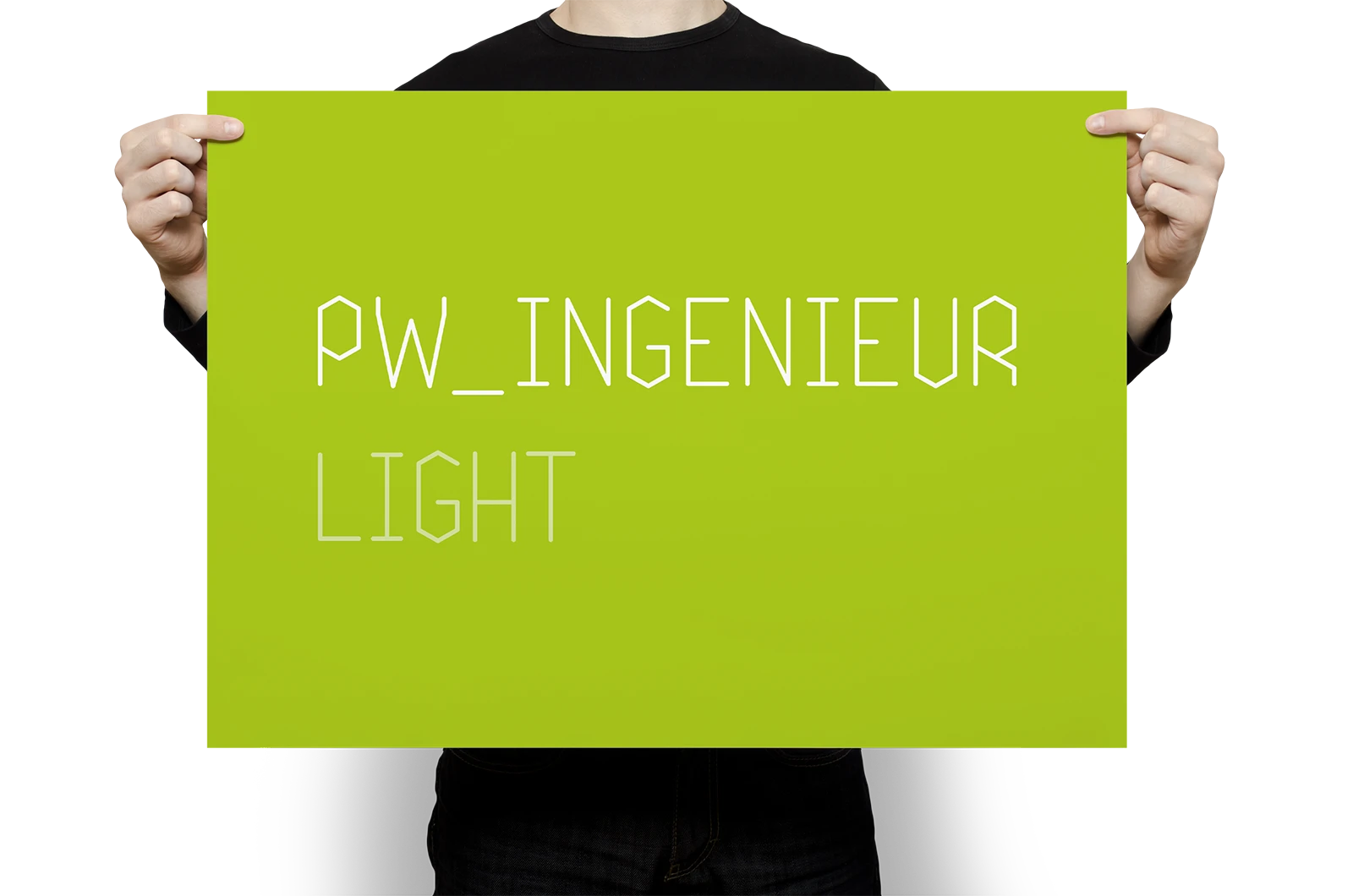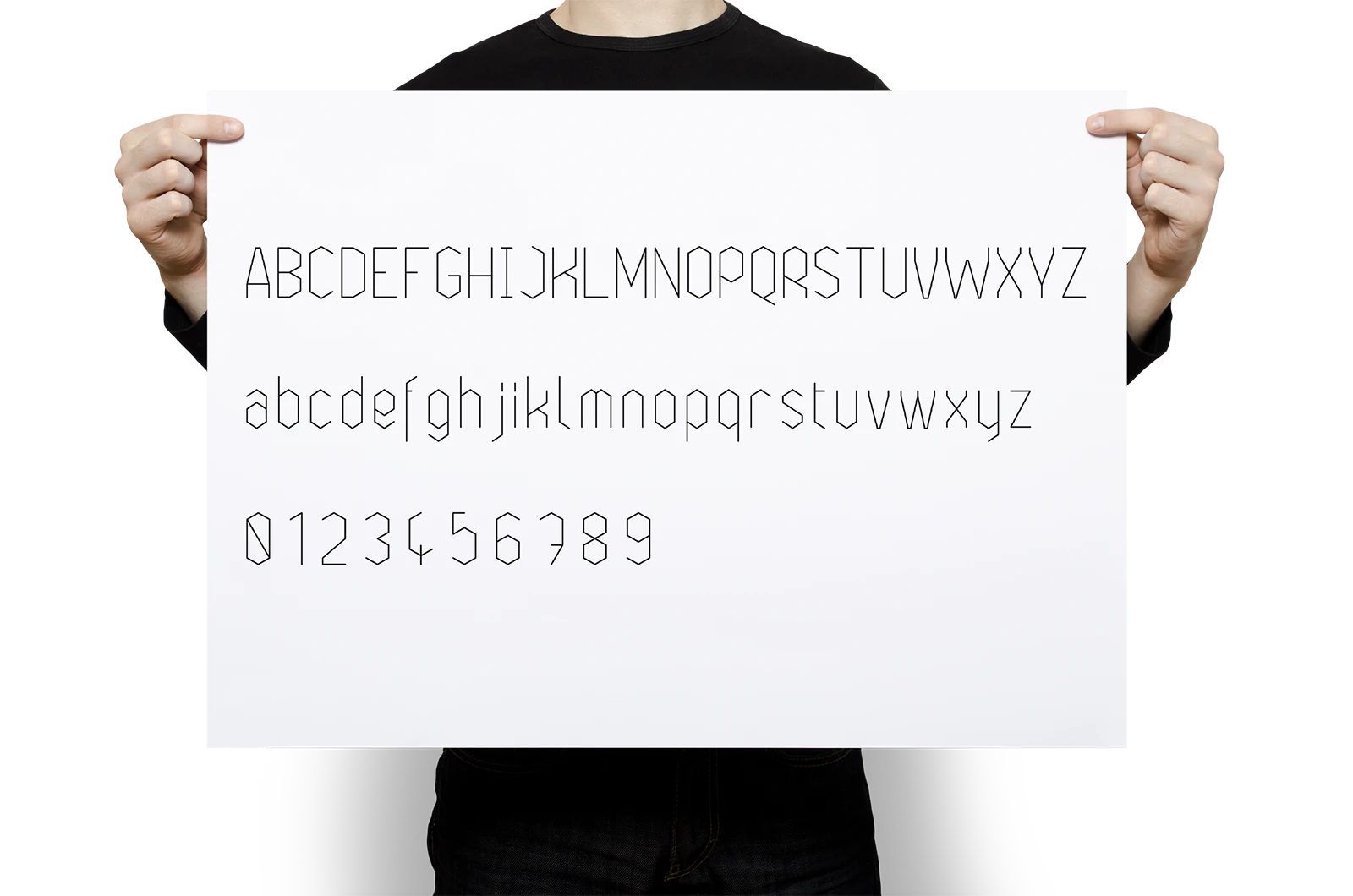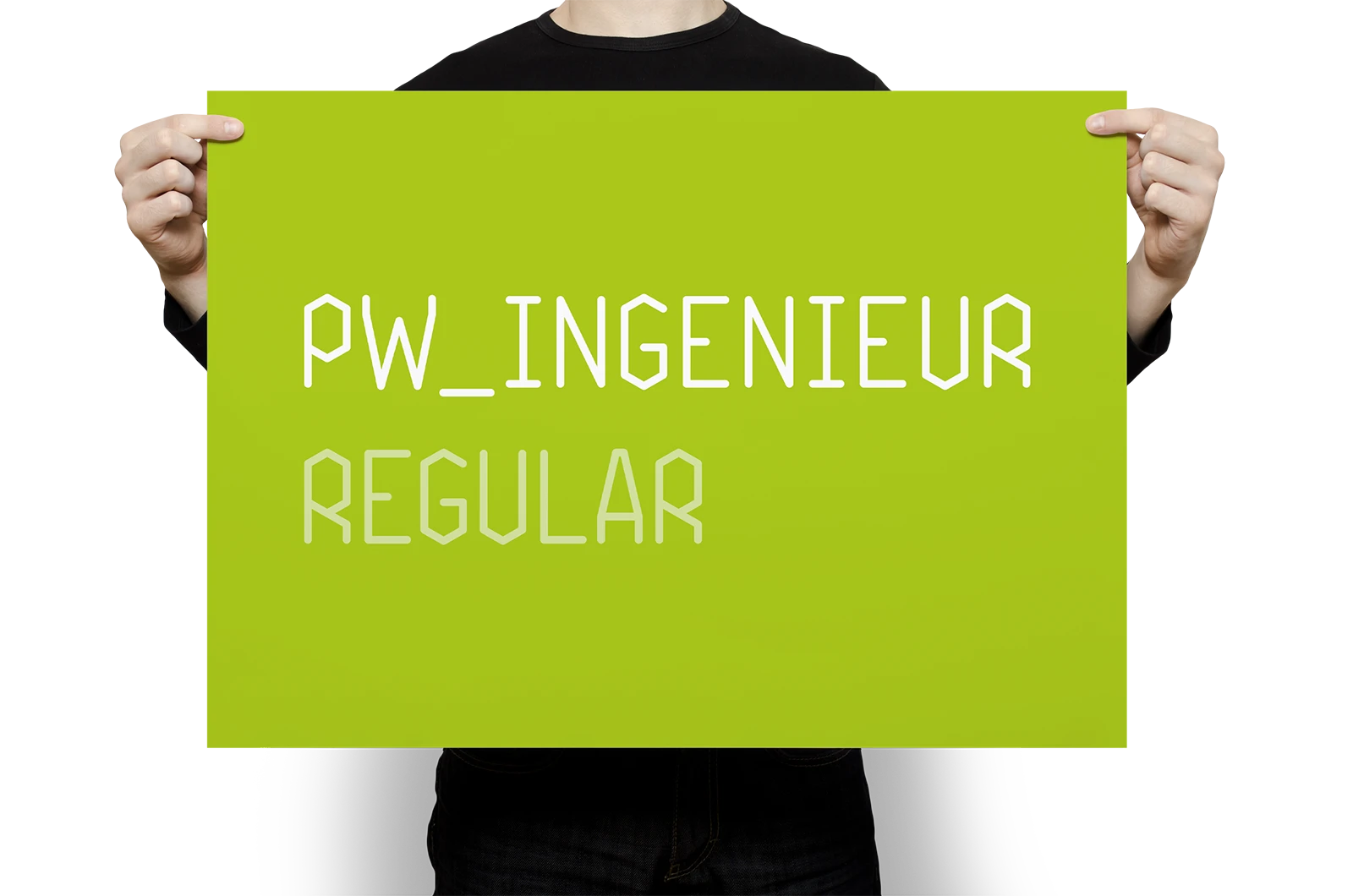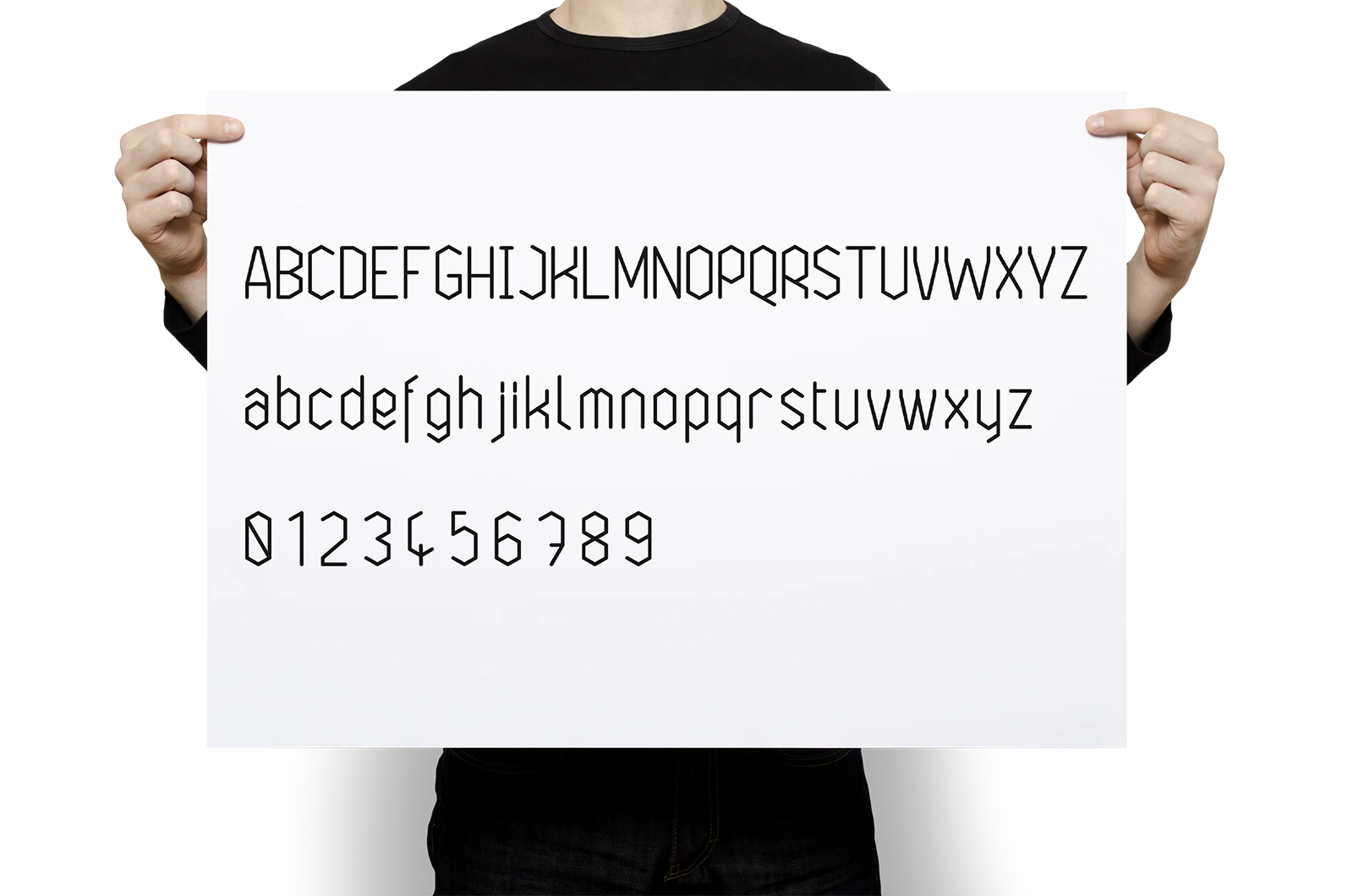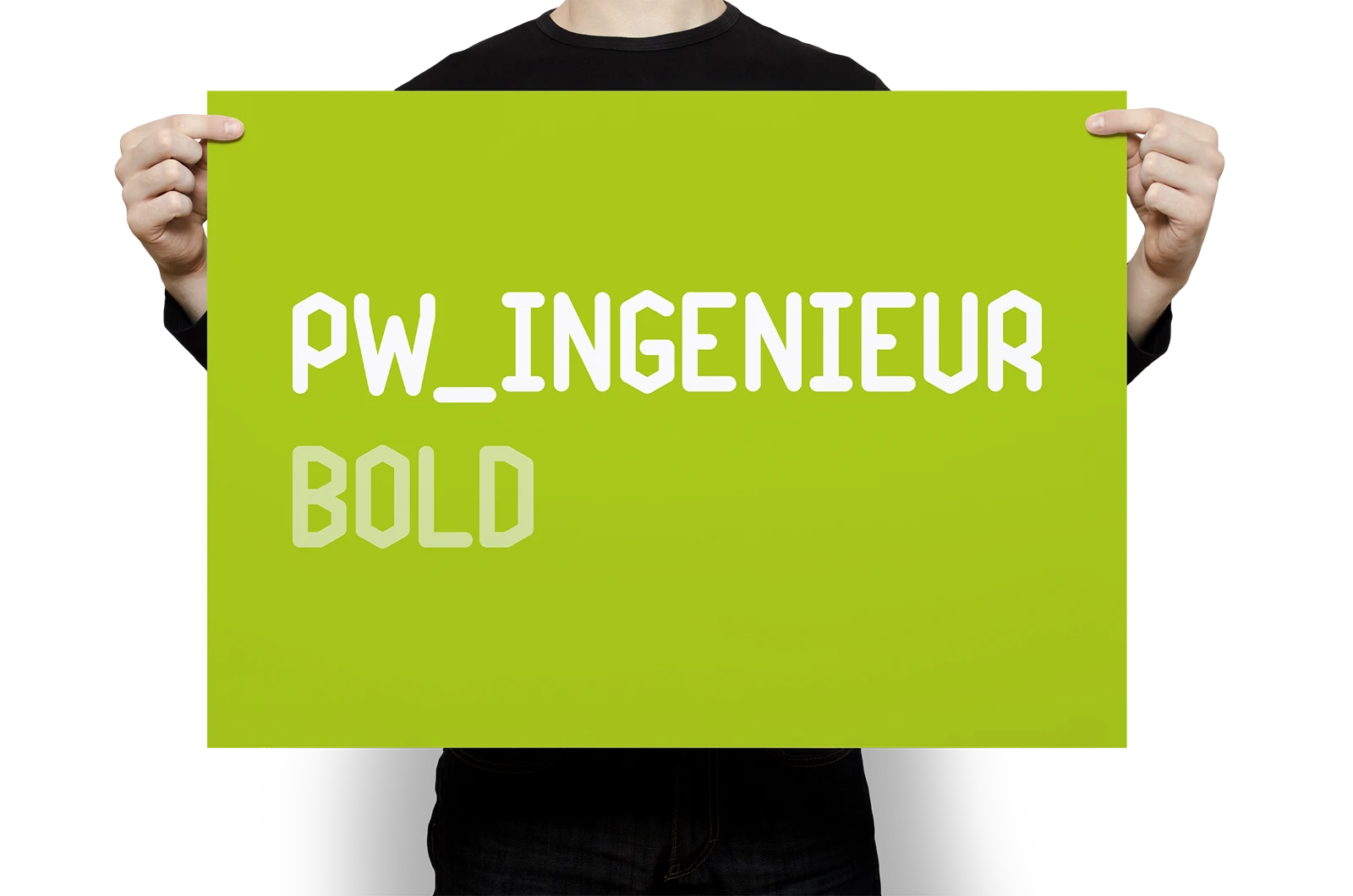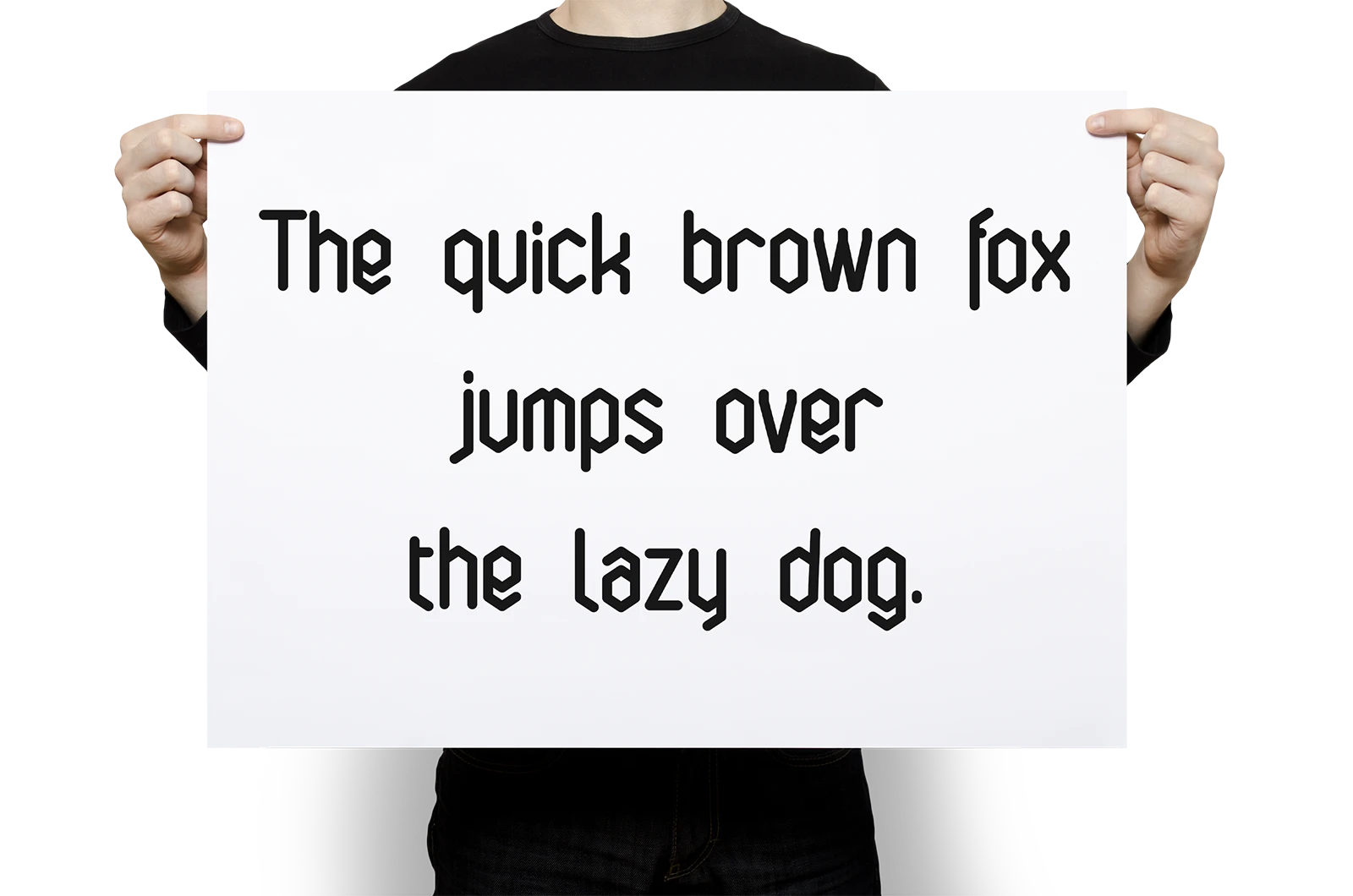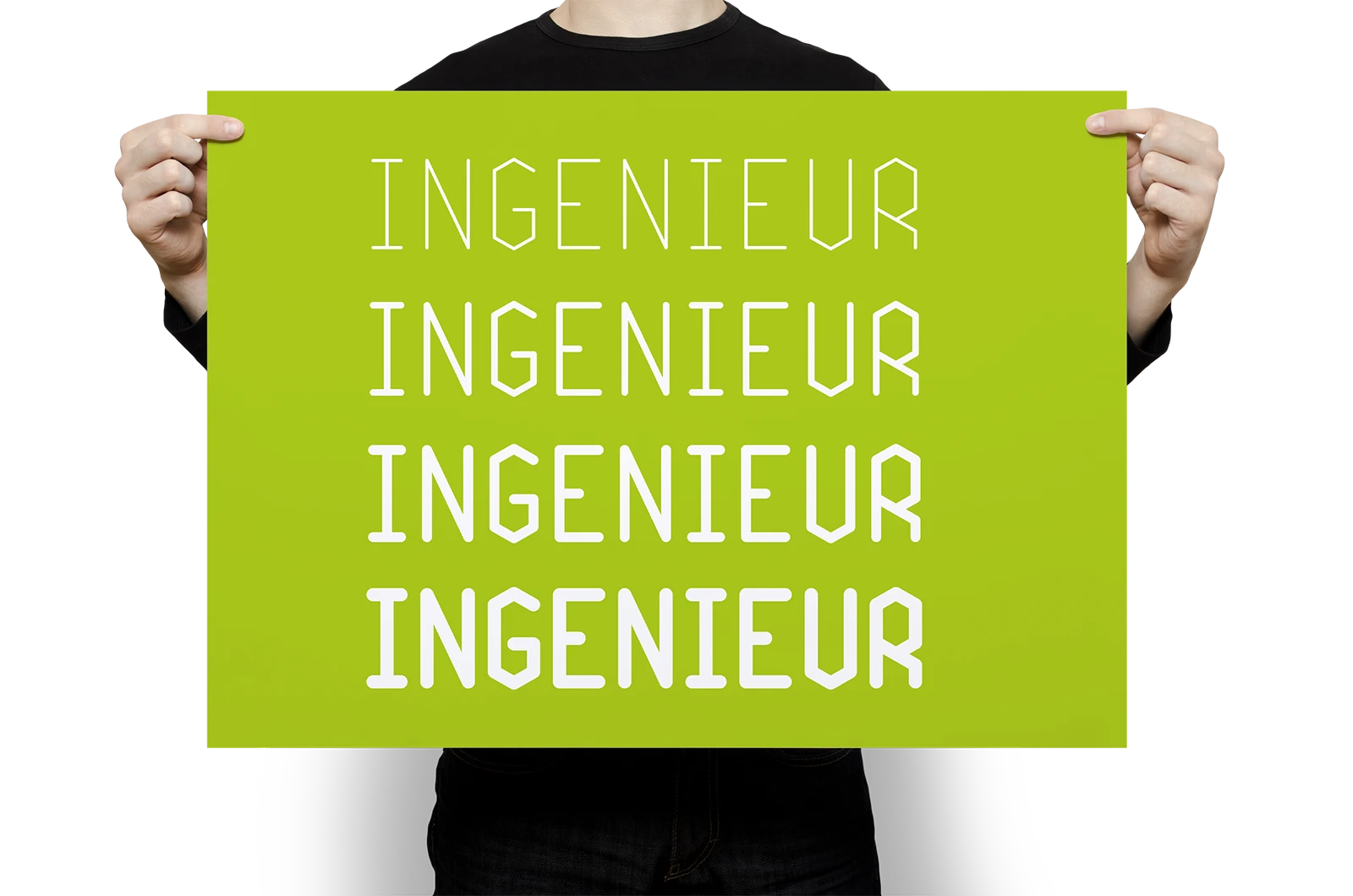
A project on the topic of typography design, in which a minimalist headline font was created in four styles. This font was developed as part of a freelance project.
Ein Projekt zum Thema Schriftgestaltung bei dem eine minimalistische Headline-Schrift in vier Schnitten gestaltet wurde. Diese Schrift entstand im Rahmen eines freien Projektes.